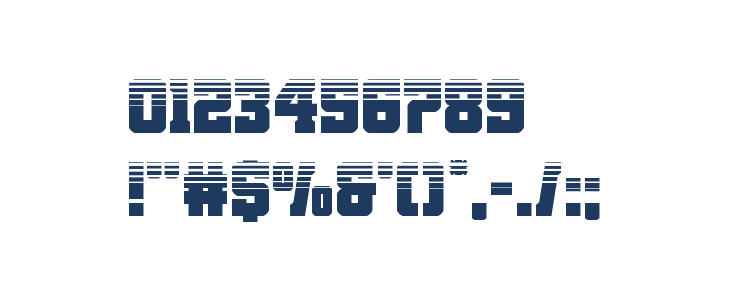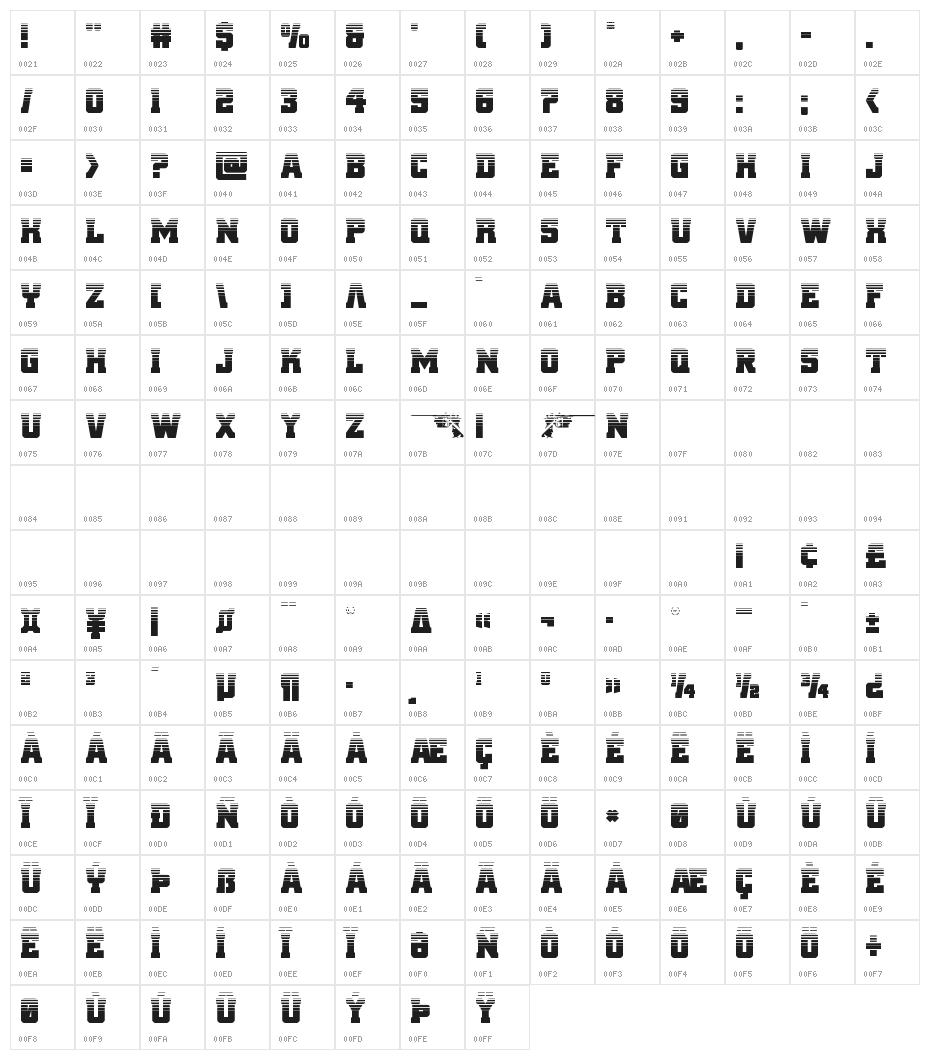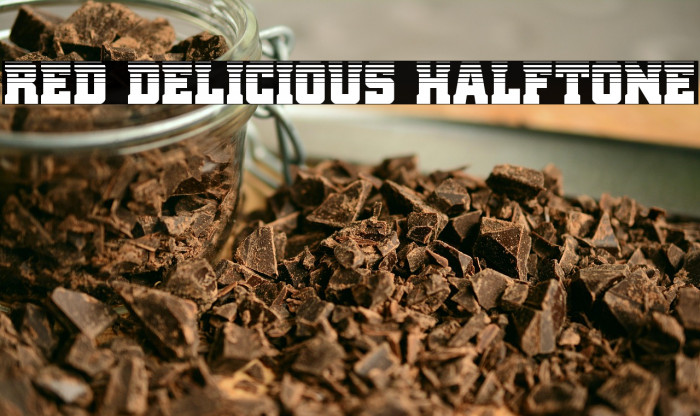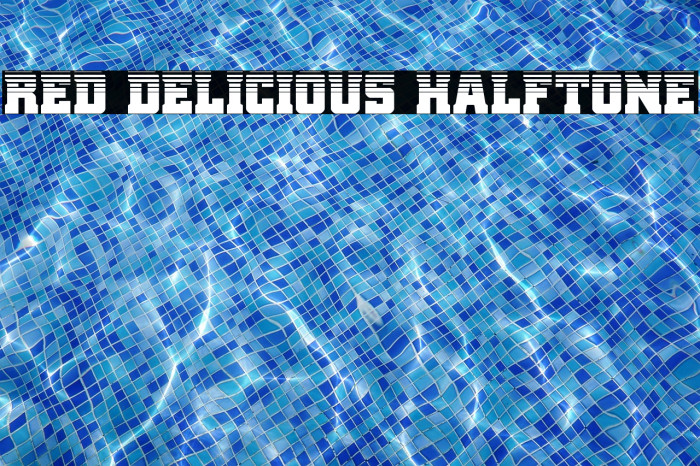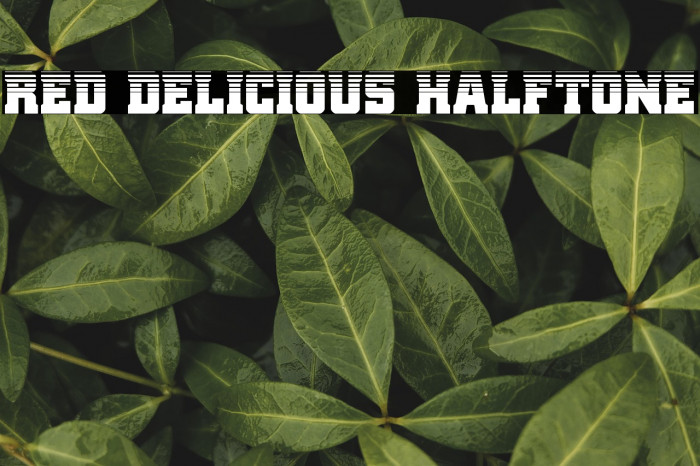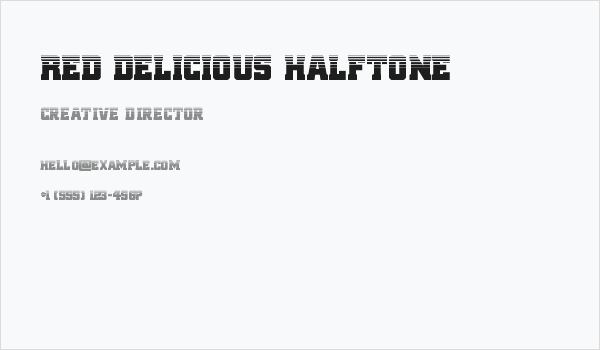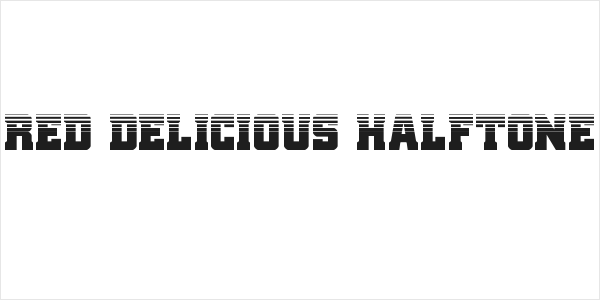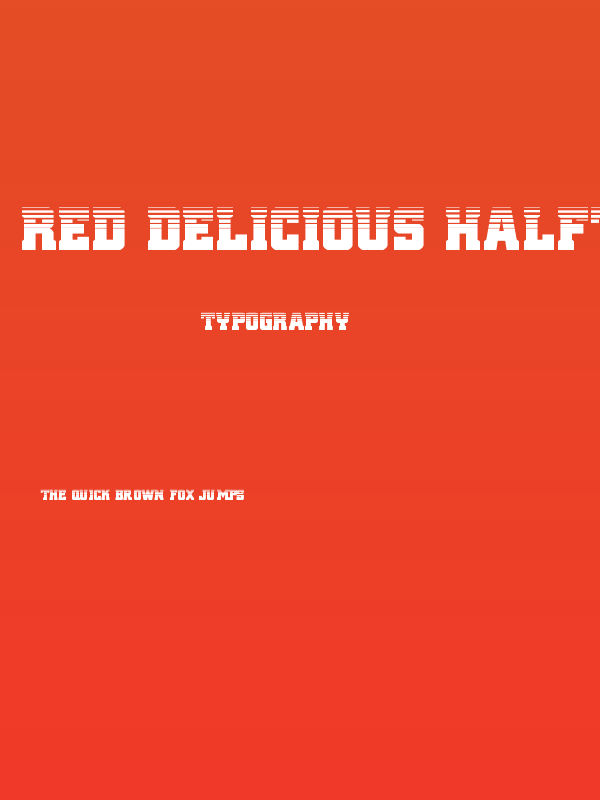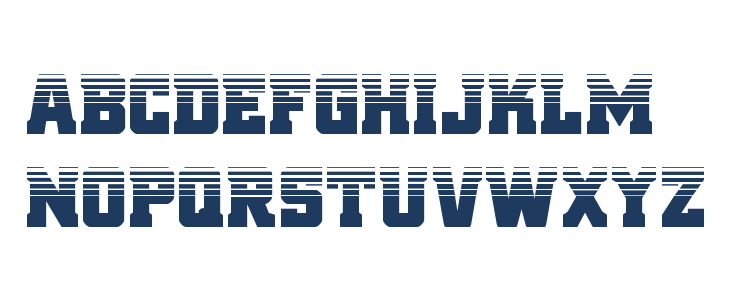
Red Delicious Halftone Font
Red Delicious Halftone Description
This font features a bold, decorative style with a unique halftone effect that gives it a modern and edgy look. The uppercase letters are designed with a strong presence, incorporating horizontal lines that create a sense of movement and depth. The numbers and special characters follow the same design principle, ensuring consistency across all characters. This font is ideal for projects that require a striking and attention-grabbing typeface, such as posters, headlines, and branding materials. Its distinct style makes it suitable for creative and contemporary designs.
| Proposed Projects | Ideal for posters, headlines, branding, and any project needing a bold, modern typeface. |